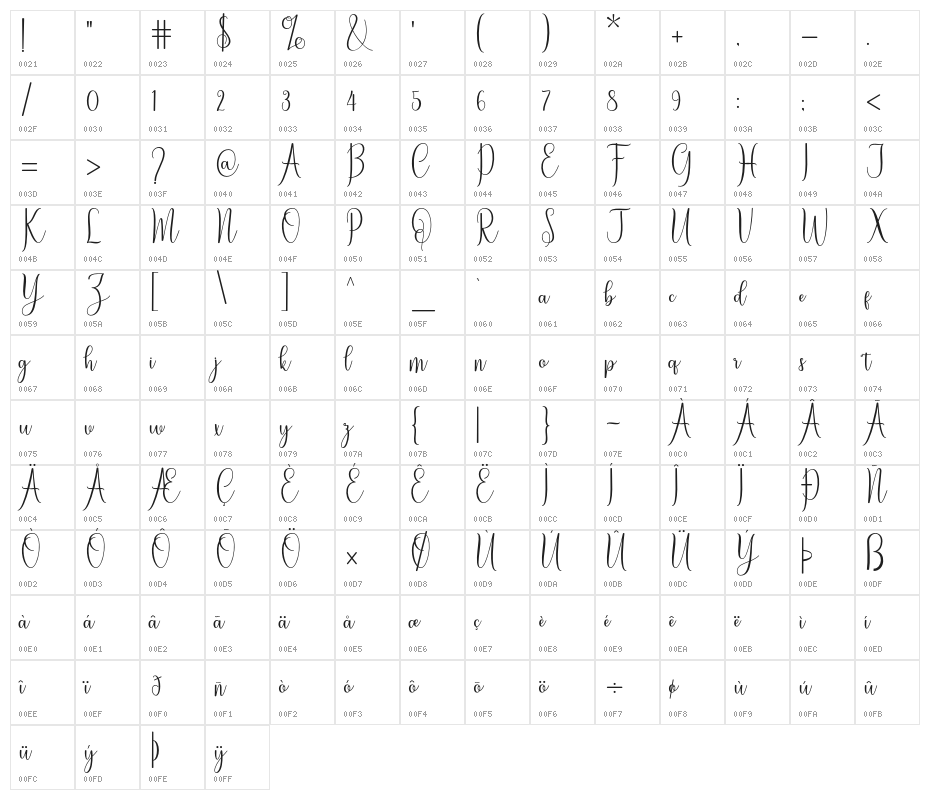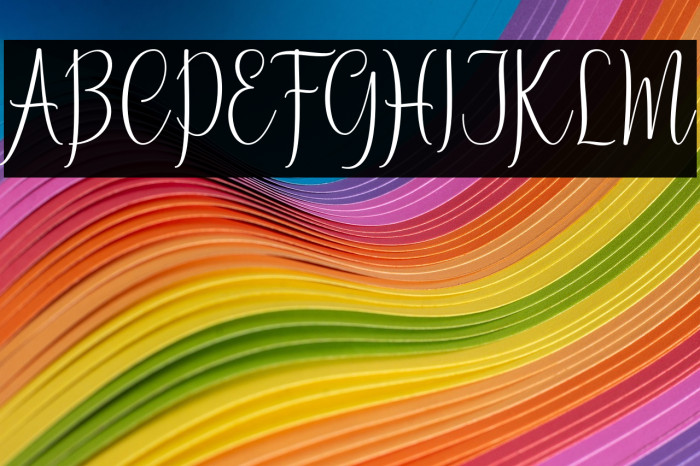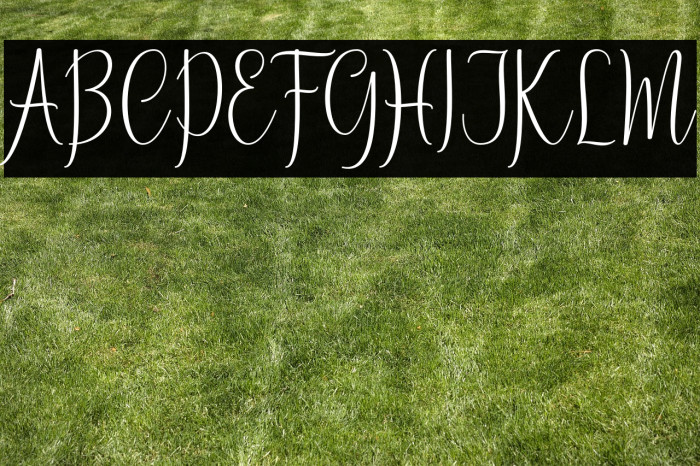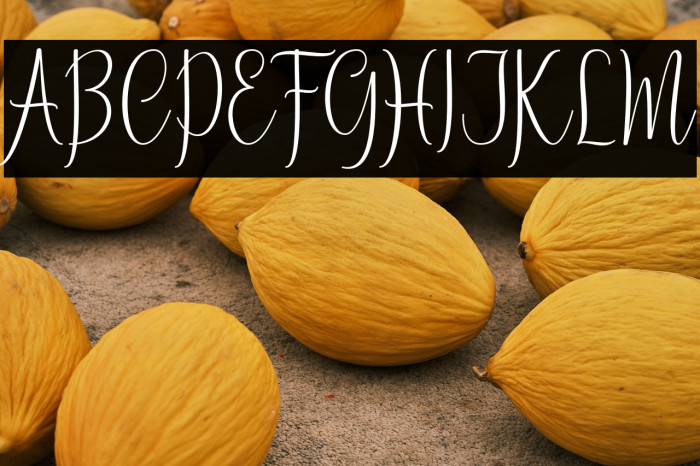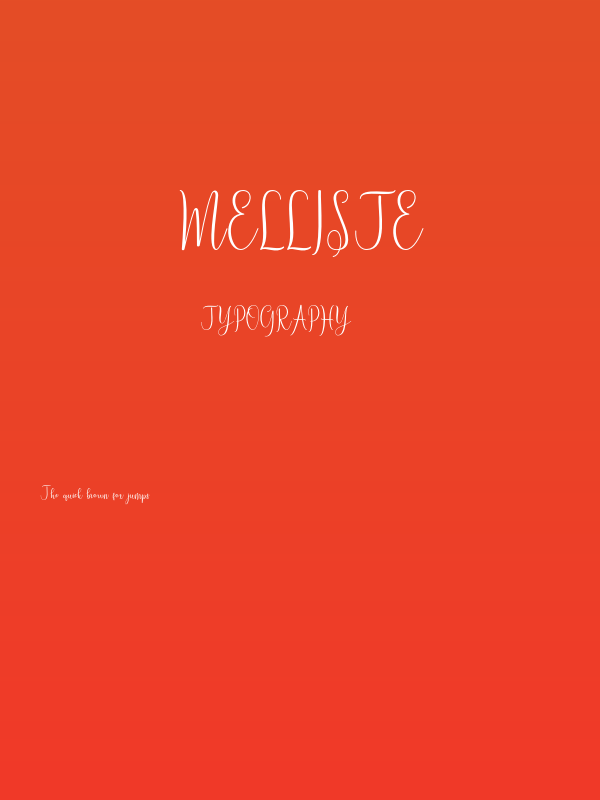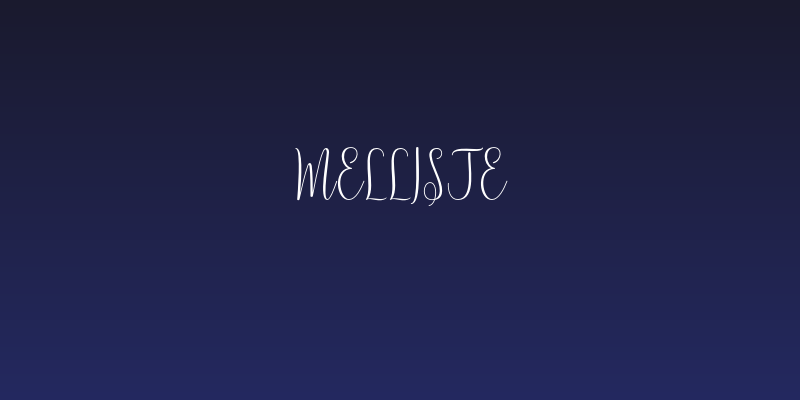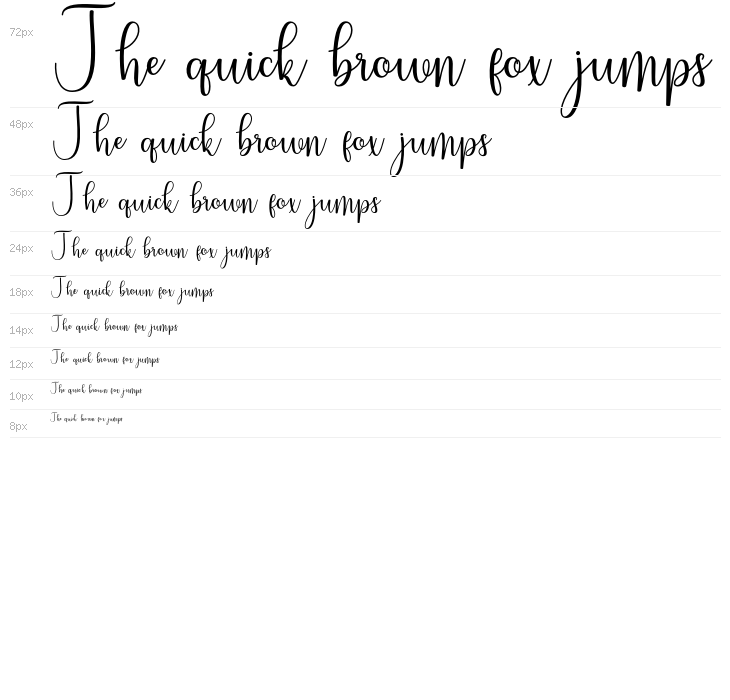
melliste Font
melliste Description
This font features an elegant and flowing script style, characterized by its graceful curves and loops. The uppercase letters are tall and slender, with a distinct flair that adds a touch of sophistication. The lowercase letters maintain a consistent flow, enhancing readability while retaining an artistic quality. The numerals are designed to complement the overall style, with a balanced mix of curves and straight lines. Special characters are thoughtfully integrated, maintaining the font's cohesive aesthetic. This script font is ideal for projects that require a personal and elegant touch.
| Use Case | Headlines, Invitations, Logos |
| Proposed Projects | Ideal for wedding invitations, greeting cards, branding, and elegant packaging designs. |